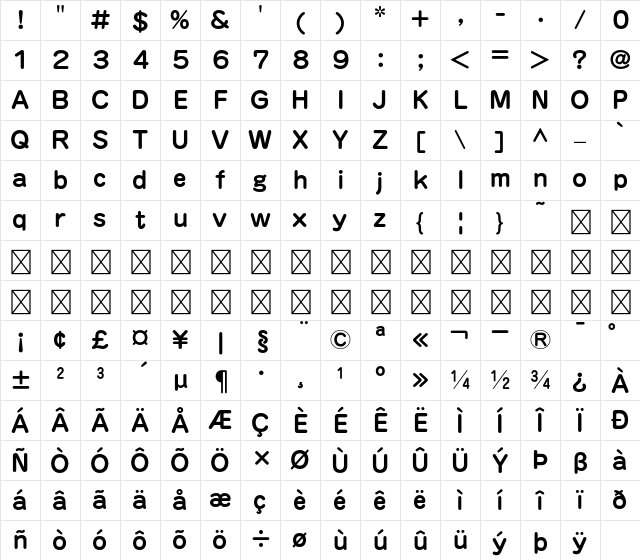
G-OTF Jun Pro 501
Style: 501
Design Context for G-OTF Jun Pro
G-OTF Jun Pro is a composed and adaptable typeface that performs quietly and consistently across a wide range of design contexts.